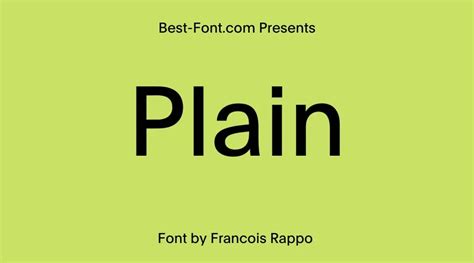
IIBahamas Plain Font: Free Download Guide
IIBahamas Plain Font: Your Ultimate Free Download Guide
Hey guys! Are you on the hunt for that perfect font to give your projects a sleek, modern edge? Look no further! The IIBahamas Plain font might just be what you need. This guide will walk you through everything you need to know about this versatile font, where to find it for free, and how to make the most of it in your designs.
What Makes IIBahamas Plain Font So Special?
Let’s dive into why the IIBahamas Plain font has become a favorite among designers. When exploring font options, IIBahamas Plain stands out due to its simplicity and contemporary design, making it an excellent choice for various projects. This font features clean lines and a balanced structure, giving it a modern and professional appearance. Its versatility shines through in different applications, whether you’re working on branding materials, website designs, or print layouts. One of the key highlights of IIBahamas Plain is its legibility. The font is designed to be easily readable across various sizes and resolutions, which is crucial for ensuring your message is clear and accessible to your audience. Think about how often you encounter fonts that are stylish but difficult to read – IIBahamas Plain avoids this pitfall, making it both visually appealing and practical. Moreover, its neutral design allows it to pair well with other fonts. This means you can use IIBahamas Plain for body text and combine it with a more decorative font for headings, creating a balanced and cohesive visual hierarchy. For example, pairing it with a bold serif font can add a touch of elegance, while using a script font can bring in a playful contrast. The adaptability of IIBahamas Plain extends to various design styles. Whether you’re aiming for a minimalist look or something more complex, this font can fit seamlessly into your project. In the world of branding, consistency is key, and IIBahamas Plain ensures that your brand’s typography remains consistent across all platforms. Consider a scenario where you’re designing a website for a tech startup. Using IIBahamas Plain for the website’s text can give it a clean and modern feel, aligning perfectly with the brand’s innovative image. Similarly, if you’re creating marketing materials for a corporate event, using this font can convey professionalism and clarity. The design of IIBahamas Plain is meticulously crafted to ensure each character complements the others, resulting in a harmonious and visually pleasing text. This attention to detail enhances the overall aesthetic appeal of your designs, making them more engaging and impactful. Its simplicity does not equate to a lack of character; rather, it provides a foundation upon which you can build your creative ideas. Think of it as a blank canvas that allows your content to shine. Ultimately, the appeal of IIBahamas Plain lies in its ability to blend seamlessly into any design while maintaining its distinct identity. Its readability, versatility, and modern aesthetic make it a valuable asset for designers looking to create professional and engaging content. So, whether you’re a seasoned designer or just starting out, IIBahamas Plain is a font worth exploring for your next project. Let’s keep going!
Using IIBahamas Plain Font in Your Projects: Tips and Tricks
Okay, you’ve got the IIBahamas Plain font installed – now what? Let’s explore some cool ways to use it in your projects and make your designs pop! Using the IIBahamas Plain font effectively in your projects requires a bit of understanding of its strengths and weaknesses. This font is known for its simplicity and modern aesthetic, making it a versatile choice for a wide range of design applications. One of the key considerations when using IIBahamas Plain is its legibility. The font is designed to be easily readable across various sizes and resolutions, which is crucial for ensuring your message is clear and accessible to your audience. However, it’s still important to choose an appropriate font size and line height to optimize readability, especially for body text. When using IIBahamas Plain for headings, consider pairing it with a complementary font for body text. A classic serif font, such as Times New Roman or Georgia, can provide a nice contrast to the clean lines of IIBahamas Plain , creating a balanced and visually appealing design. Alternatively, you can pair IIBahamas Plain with another sans-serif font that has a slightly different weight or style to create a subtle contrast. In terms of branding, IIBahamas Plain can be an excellent choice for creating a modern and professional image. Its simplicity and versatility make it suitable for a wide range of industries, from technology and finance to healthcare and education. When using IIBahamas Plain in your branding materials, such as logos, business cards, and website designs, ensure that the font is consistent with your brand’s overall aesthetic and messaging. Experiment with different weights and styles of IIBahamas Plain to create visual interest and hierarchy. For example, you can use a bold weight for headings and a regular weight for body text to create a clear visual distinction between different sections of your design. Additionally, you can use italics to emphasize certain words or phrases. When using IIBahamas Plain in web design, consider its performance implications. Large font files can slow down website loading times, which can negatively impact user experience. To avoid this issue, optimize the font files by compressing them and using web-safe font formats, such as WOFF and WOFF2. Additionally, consider using CSS font-display properties to control how the font is displayed while it’s loading. IIBahamas Plain can also be used effectively in print design. When designing brochures, posters, and other print materials, ensure that the font is properly embedded in the PDF file to prevent font substitution issues. Additionally, consider the printing resolution and choose an appropriate font size to ensure that the text is sharp and legible. In conclusion, the IIBahamas Plain font is a versatile and modern typeface that can be used effectively in a wide range of design projects. By understanding its strengths and weaknesses and following these tips and tricks, you can leverage IIBahamas Plain to create visually appealing and impactful designs. You’re now equipped with the knowledge to find, install, and use the IIBahamas Plain font (or a similar one) in your projects. Go forth and create awesome designs! Good luck, and have fun experimenting with typography!